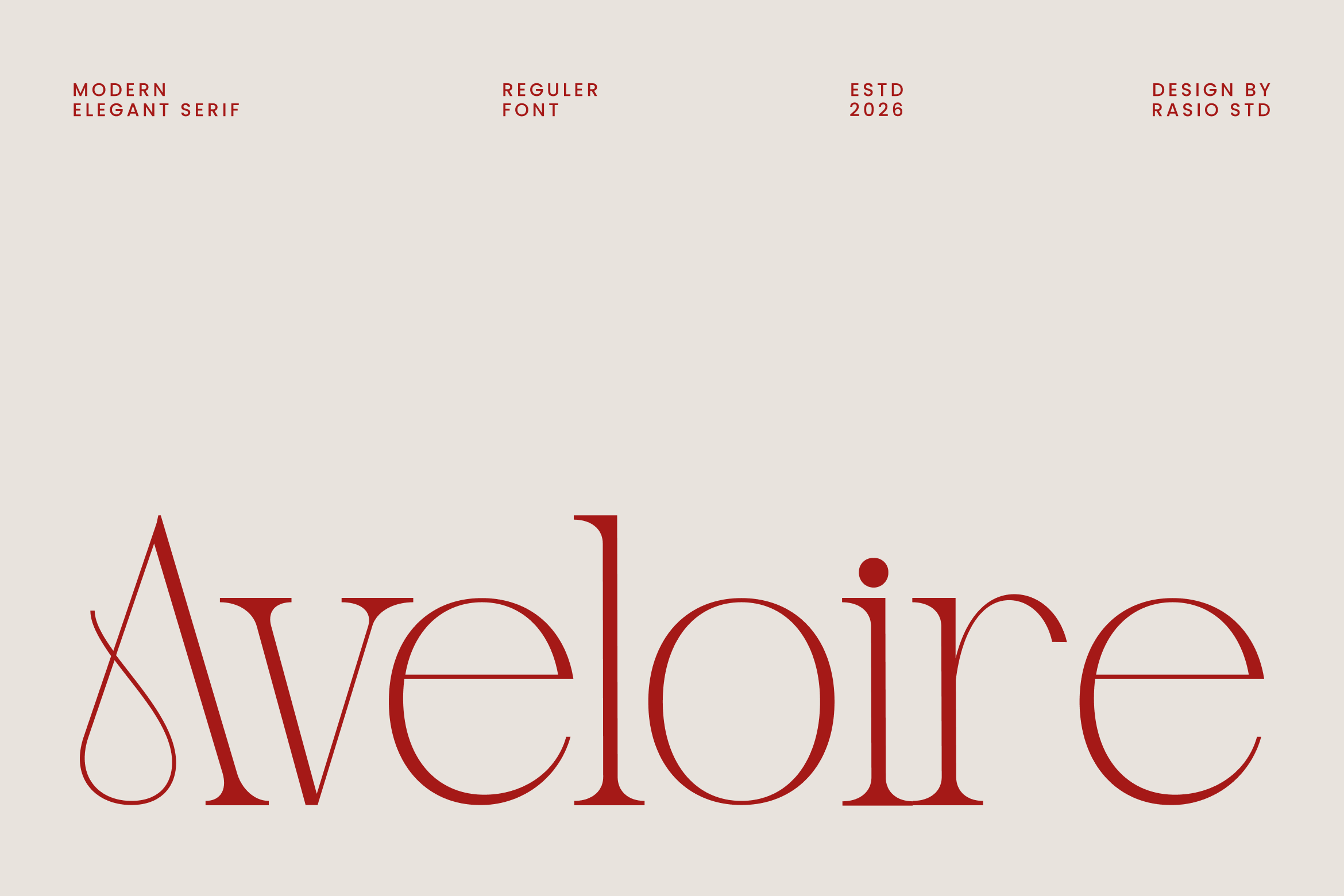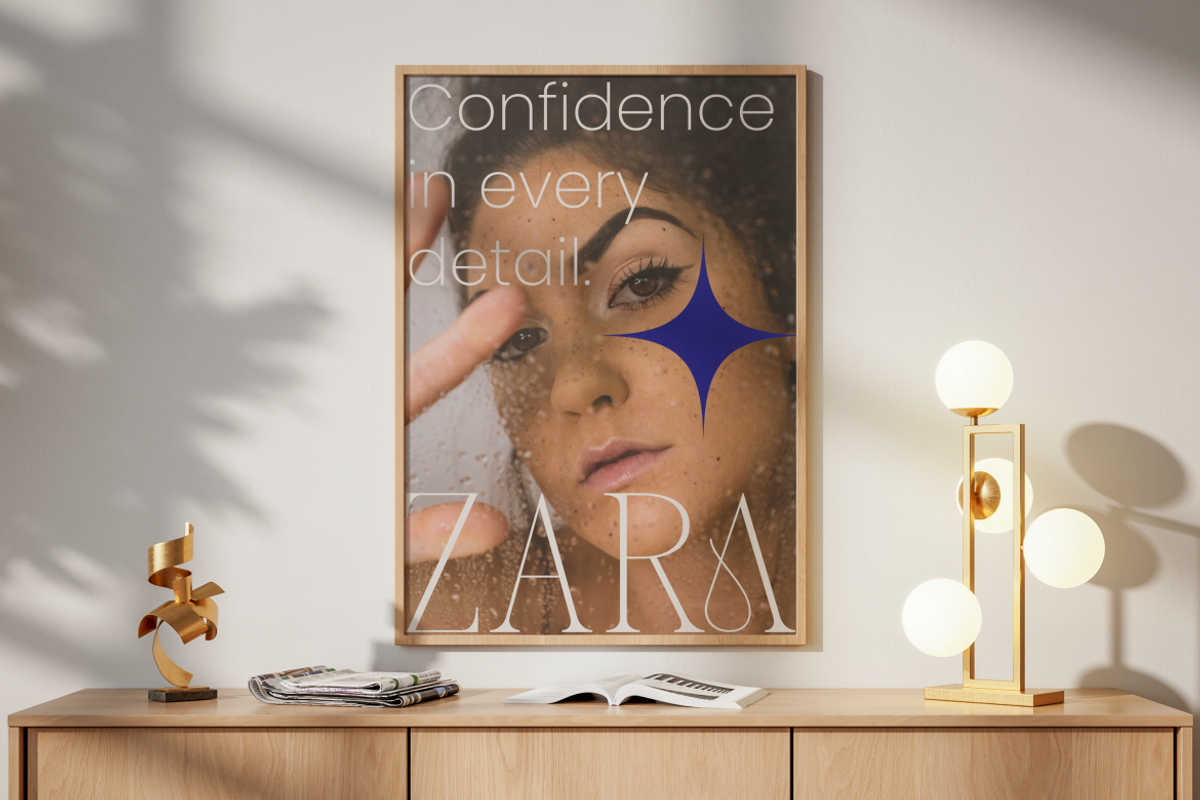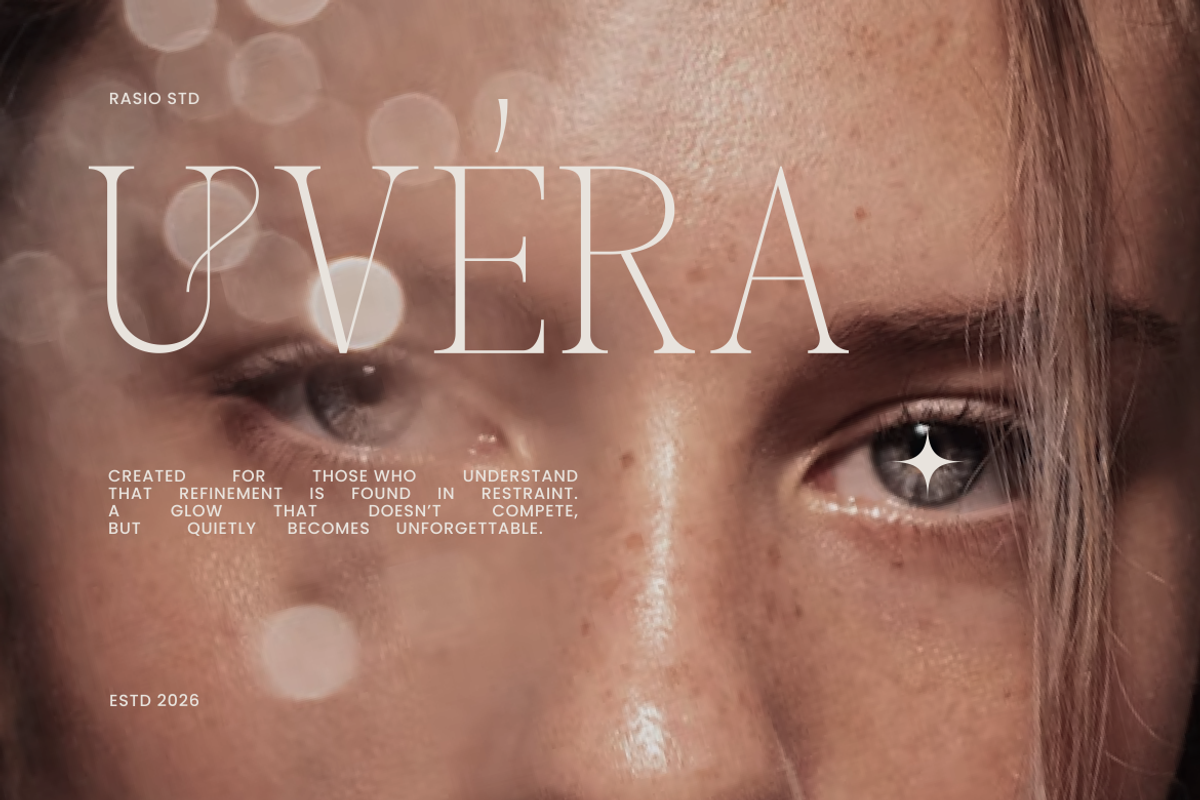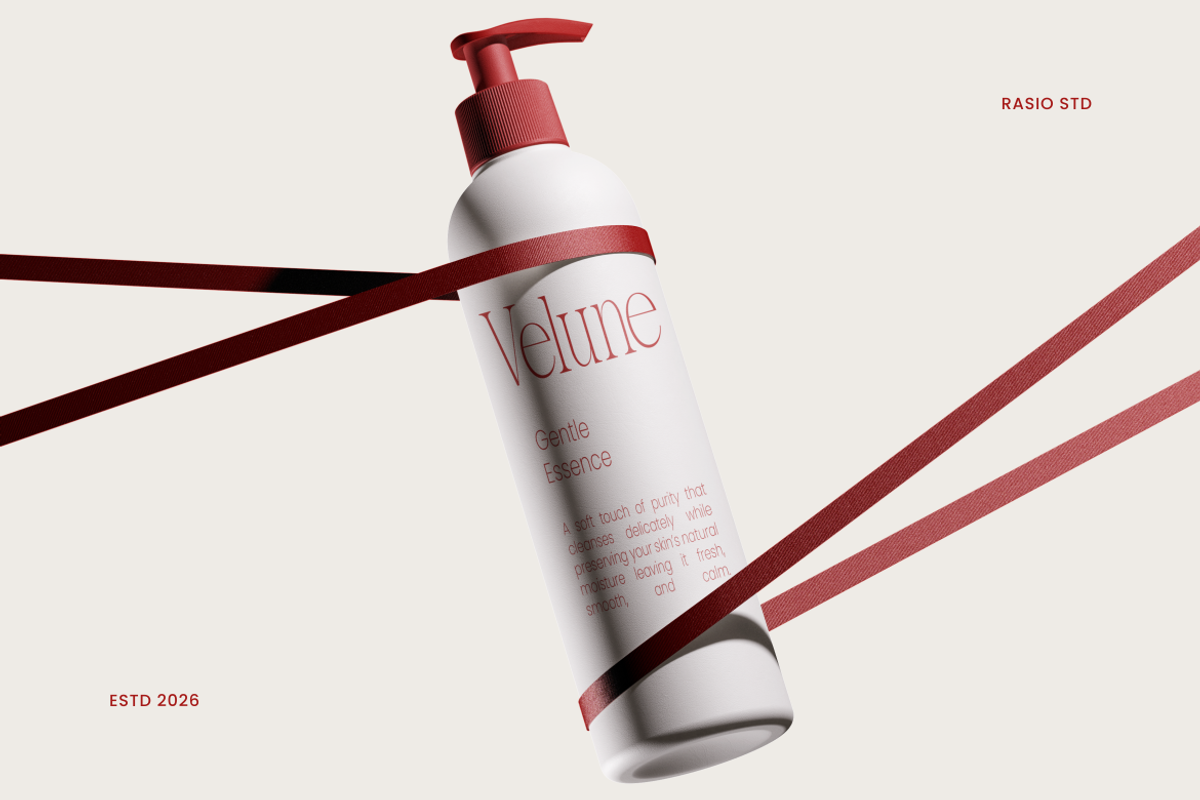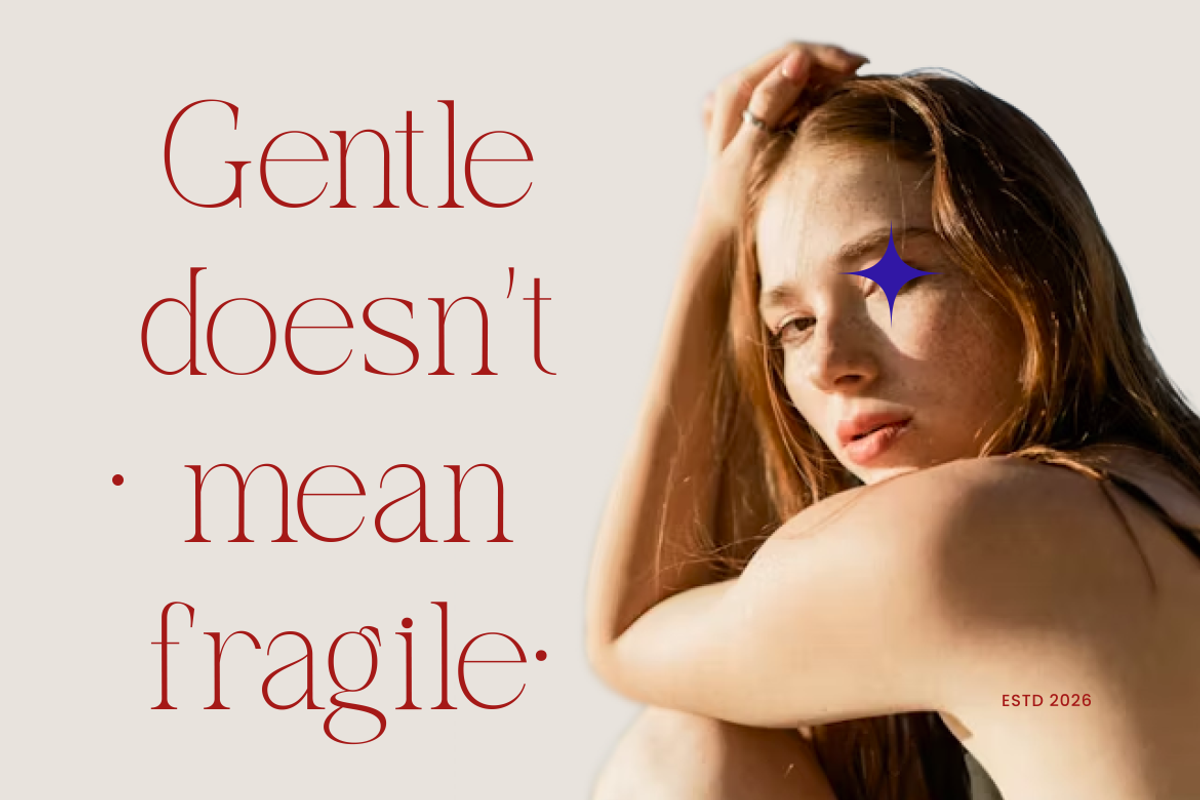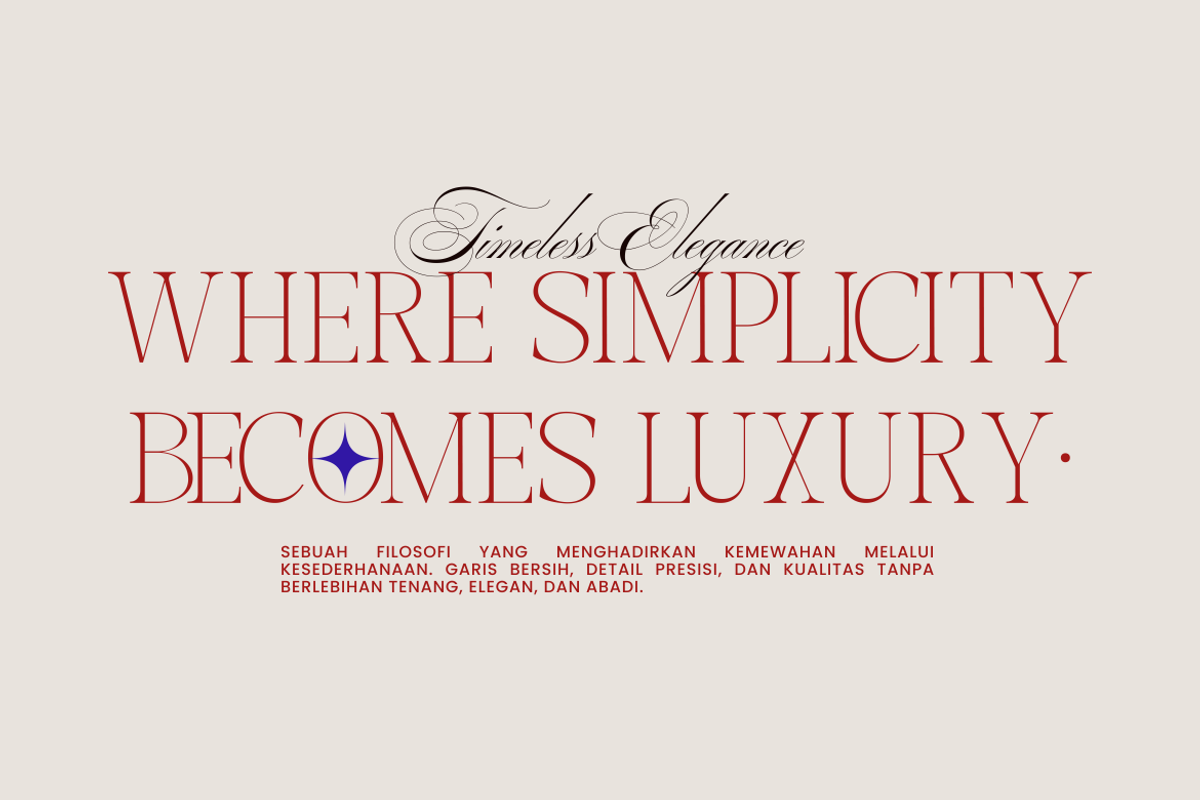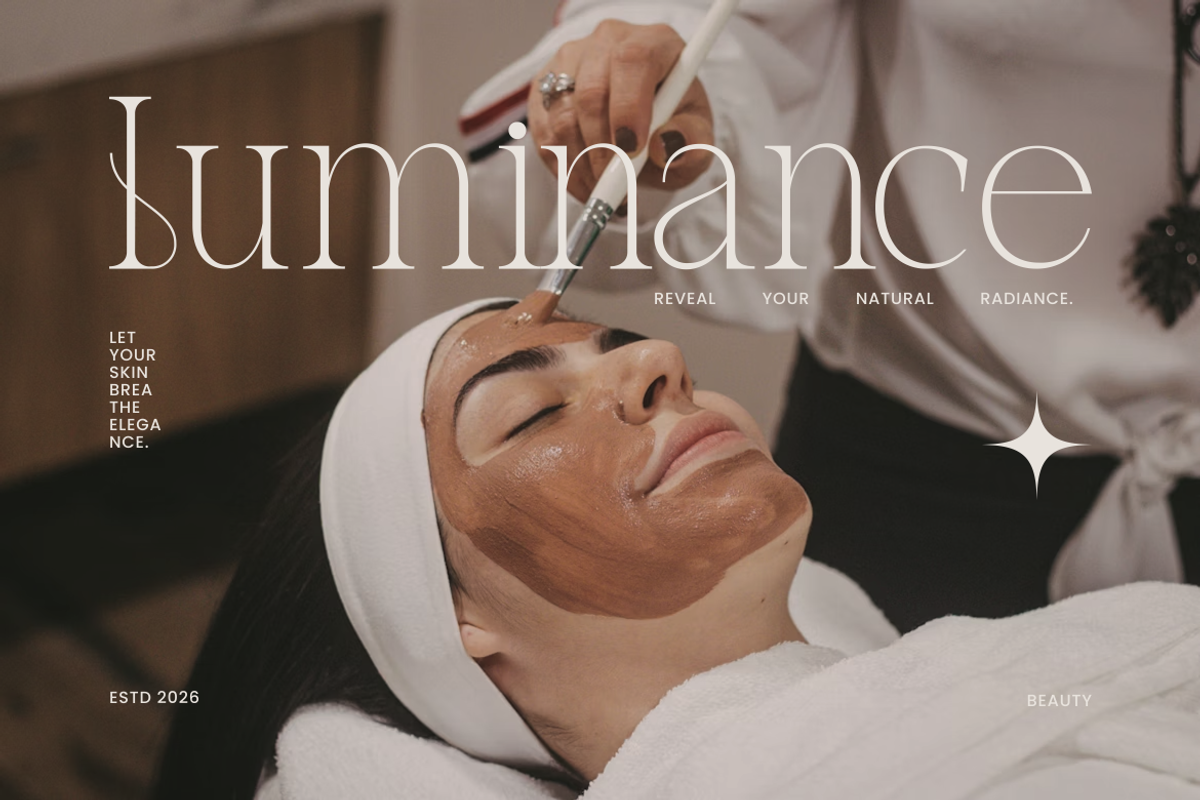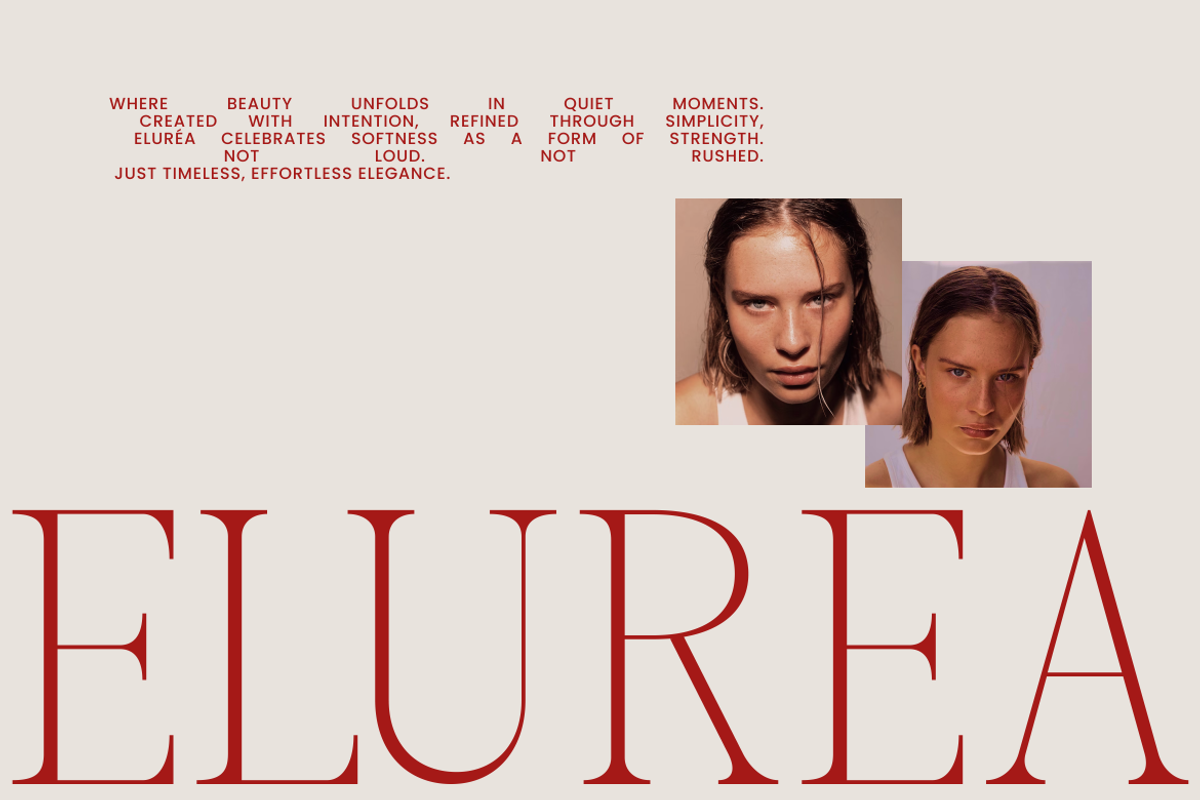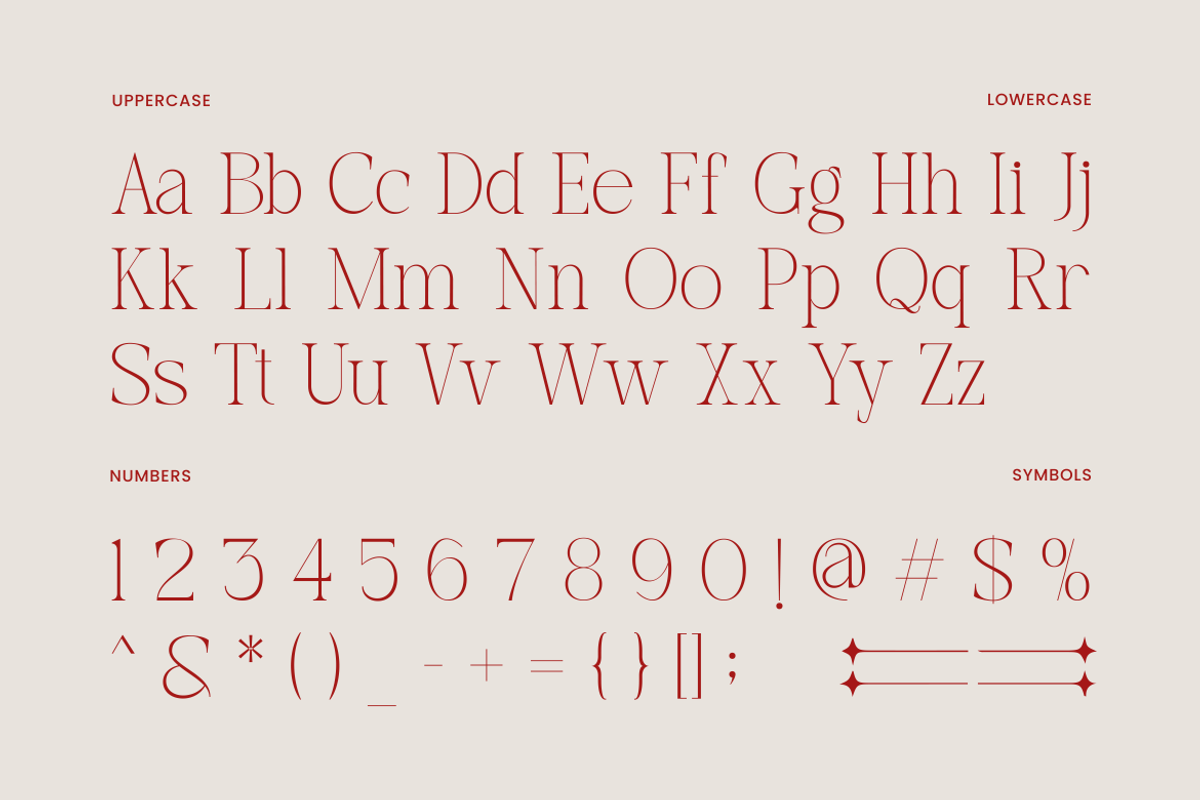
Aveloire Modern Elegant Serif Font
Aveloire is a modern elegant serif typeface designed with refined proportions and graceful character details. The font features delicate serifs, smooth stroke contrast, and stylish letterforms that create a sophisticated editorial look. It includes uppercase, lowercase, numbers, punctuation, and decorative symbols, making it versatile for various professional design needs.
Aveloire is highly relevant for modern editorial and luxury branding projects that require a refined and elegant typographic presence. The font works well for fashion magazines, beauty branding, premium product packaging, luxury logos, and stylish social media designs. Its elegant serif structure also fits wedding invitations, boutique branding, and high-end marketing visuals where sophisticated typography plays a central role.
- Elegant serif structure with refined high-contrast strokes
- Graceful curves and delicate terminals for a sophisticated feel
- Stylish character details that enhance editorial aesthetics
- Balanced proportions for clear and elegant readability
- Carefully spaced letterforms for smooth headline and text composition
- Luxury brand identities seeking an elegant and refined visual tone
- Fashion editorials and high-end magazine layouts
- Premium product packaging and cosmetic branding
- Elegant logos and boutique brand designs
- Wedding stationery and sophisticated social media graphics